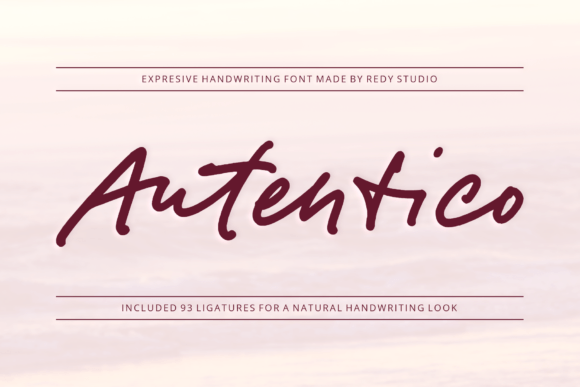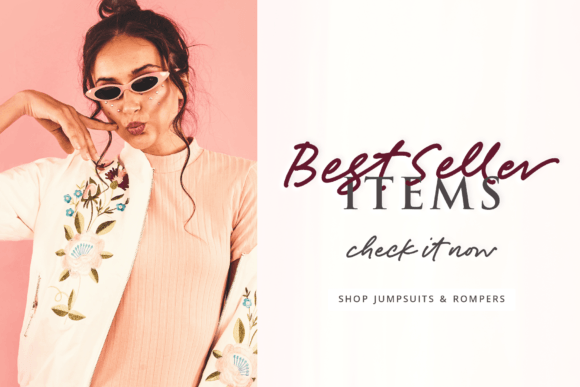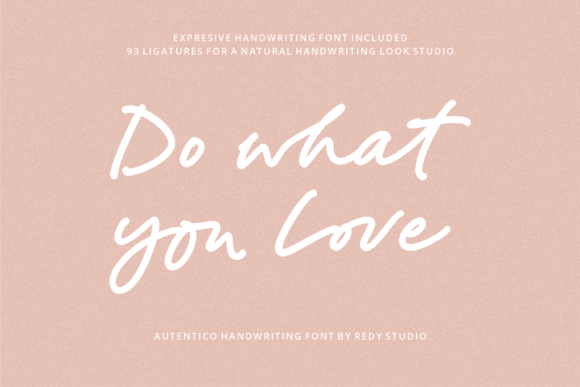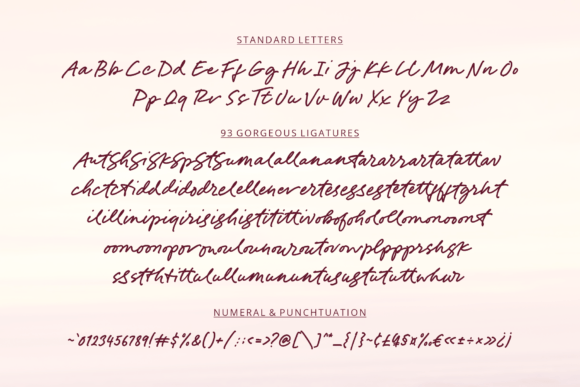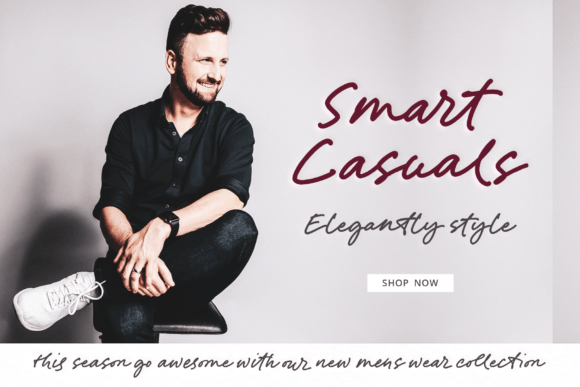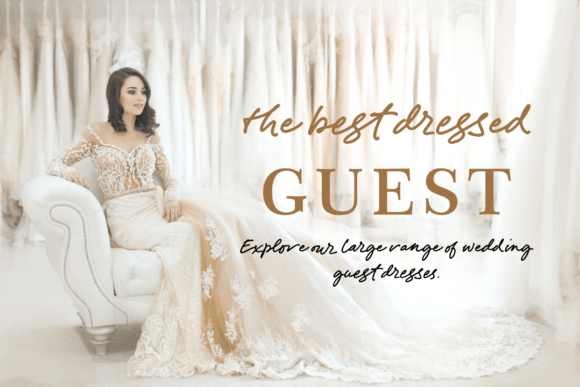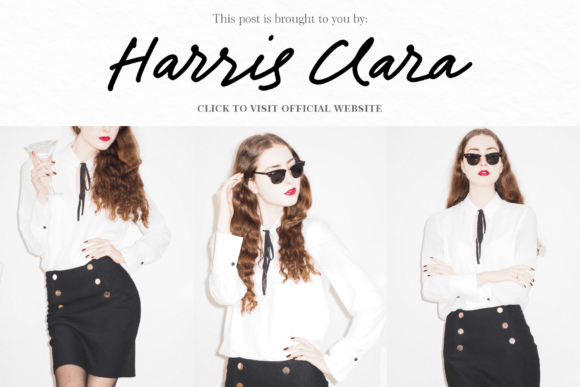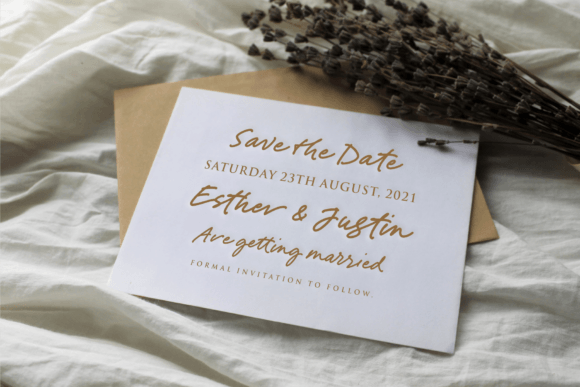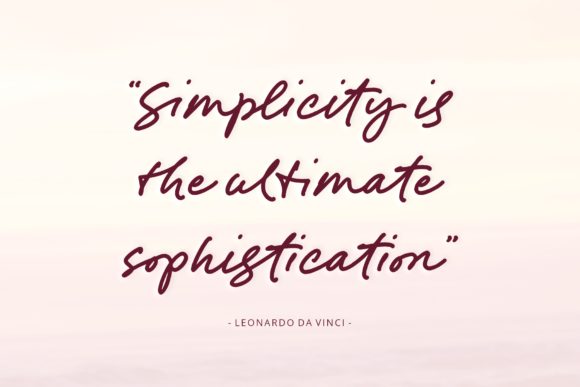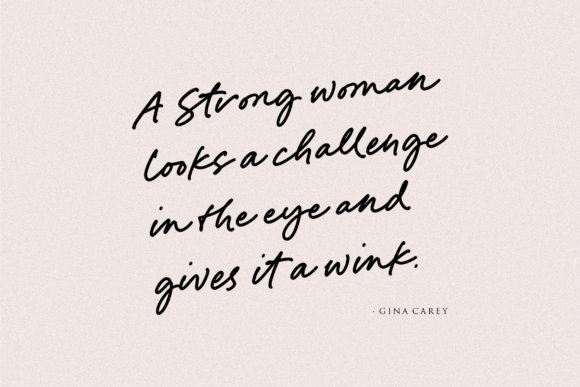
Autentico Font
Autentico Font : A Charming Handwritten Font for Versatile Design
Autentico is an enchanting handwritten font that effortlessly captures attention. This versatile script typeface is perfect for a wide range of creative applications, from heartfelt greeting cards to captivating headlines.
Key Features of Autentico Font
• Authentic Handwritten Style: Adds a personal touch to your designs
• PUA Encoding: Easy access to all glyphs and ligatures for enhanced creativity
• Versatile Application: Suitable for greeting cards, headlines, branding, and more
Perfect for Multiple Design Projects
Autentico’s adaptability makes it an excellent choice for:
• Greeting card designs
• Engaging headlines for publications
• Branding materials
• Website headers
• Personalized book designs
Enhancing Your Creative Vision
With Autentico, you can infuse your designs with a sense of character and allure. Its meticulously designed characters exude authenticity, making it invaluable for crafting unique and appealing projects.
Crafting with Autentico
Whether you’re working on print media or digital designs, Autentico seamlessly integrates into diverse contexts. Its impeccable readability ensures your message is conveyed with clarity and style, while its inherent charm adds visual appeal.
Digital Design Applications
In the digital realm, Autentico shines by adding a sense of authenticity to your content. Use it for:
• Eye-catching website headers
• Engaging social media graphics
• Unique email marketing campaigns
• Distinctive blog post titles
Autentico is more than just a font; it’s a design asset that elevates your creative projects with charm and individuality. Its handwritten style inspires captivating and unique designs that leave a lasting impression. By incorporating Autentico into your designs, you can create visually appealing and memorable content that engages your audience. Whether you’re a professional designer or someone looking to add a personal touch to your projects, Autentico offers the perfect blend of authenticity and versatility. Consider pairing Autentico with clean sans-serif fonts for contrast or complementing it with other script fonts for a dynamic typographic palette. This versatility allows you to create designs that are both authentic and harmonious across various mediums and industries. Embrace the charm of Autentico today and watch as it transforms your creative ideas into engaging and unique designs!